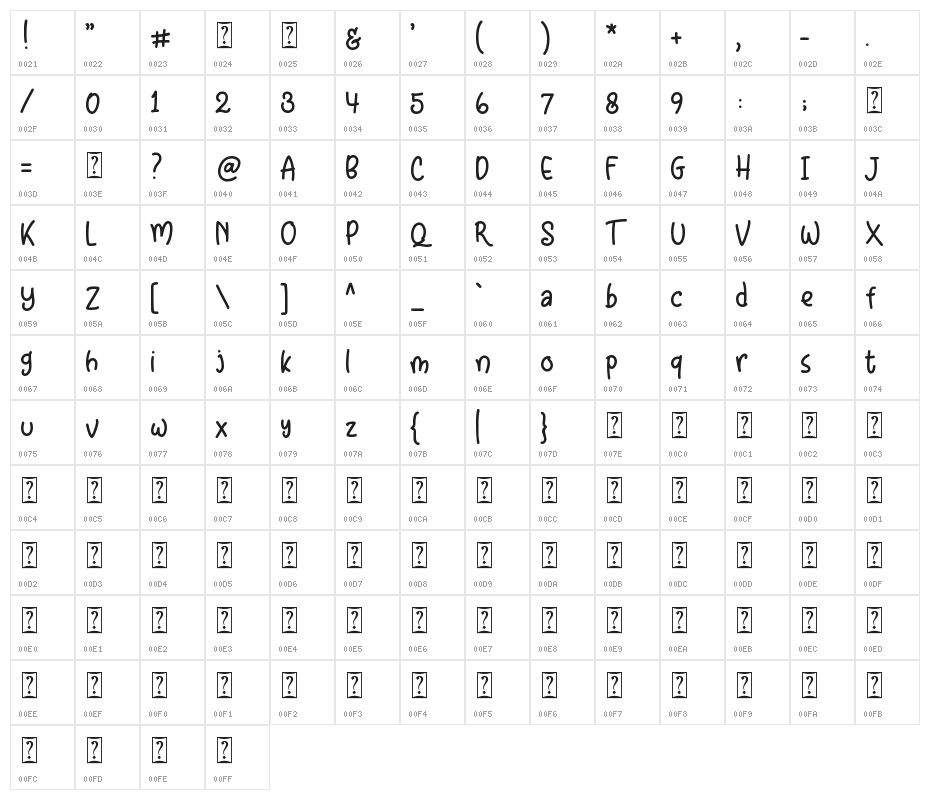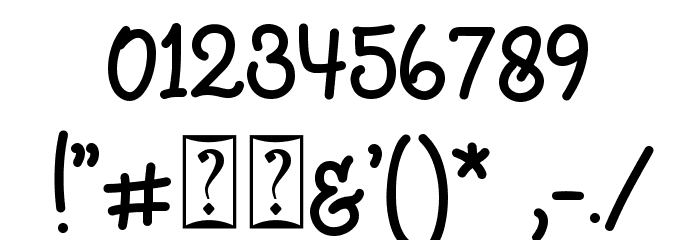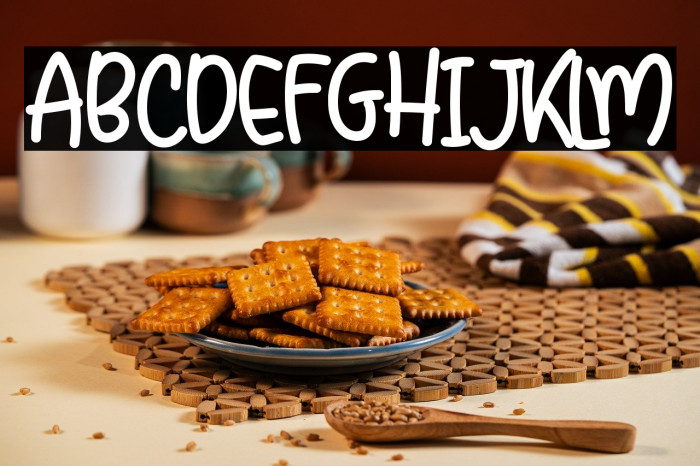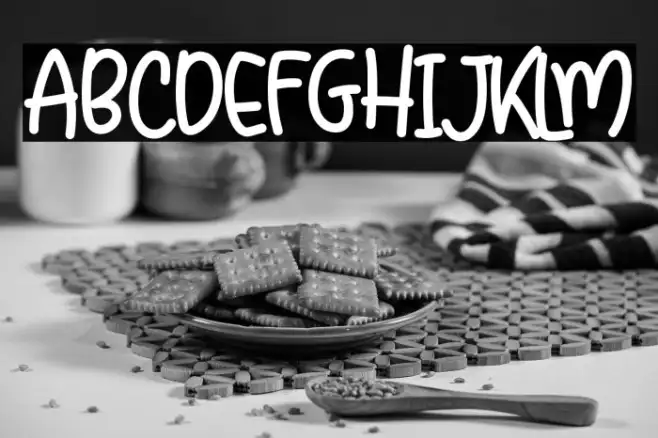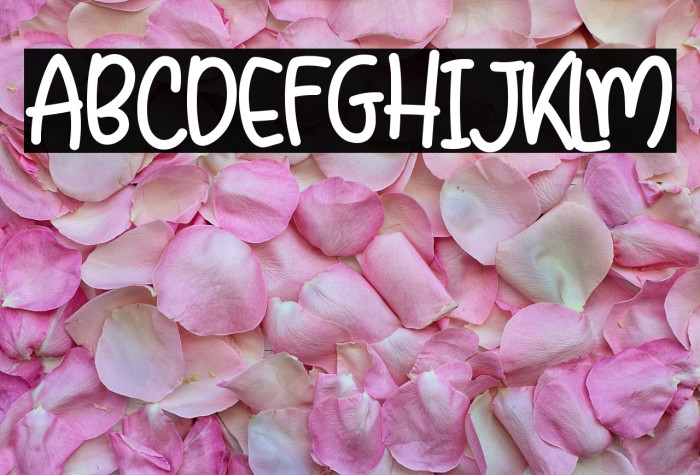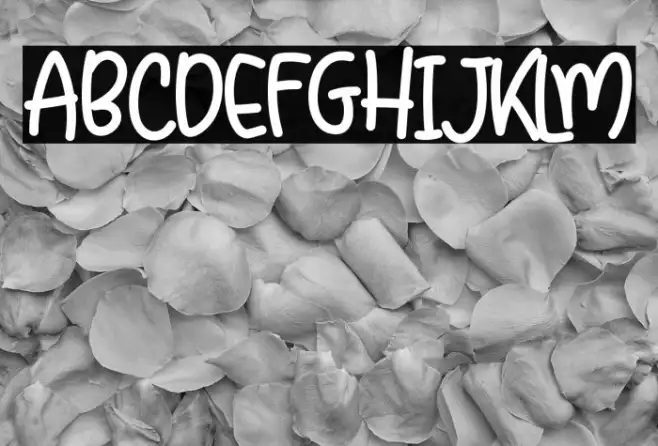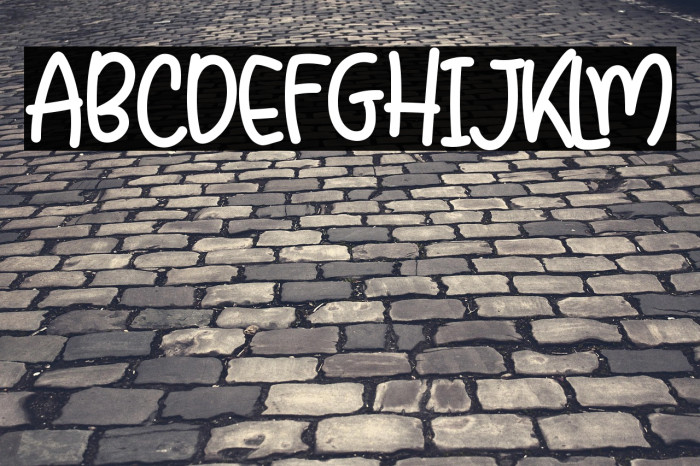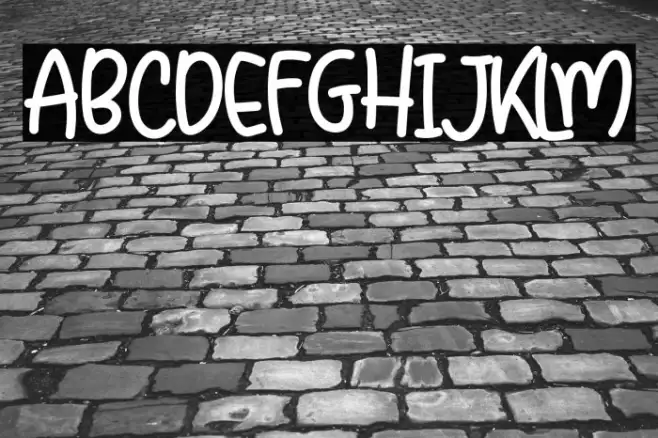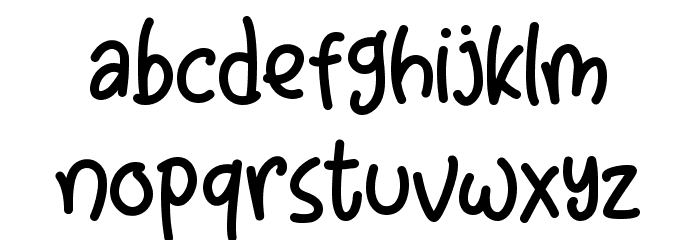
Little Clusters Reg Demo Font
Little Clusters Reg Demo Description
This playful and whimsical font features rounded, hand-drawn characters that convey a sense of fun and creativity. The letters are slightly irregular, giving them a casual, informal appearance. The strokes are consistent in width, contributing to a harmonious and balanced look. The font includes both uppercase and lowercase letters, numerals, and a variety of special characters, making it versatile for different uses. Its friendly and approachable style makes it ideal for projects that aim to evoke a sense of joy and lightheartedness.
| Proposed Projects | Ideal for children's books, greeting cards, playful branding, and creative projects. |